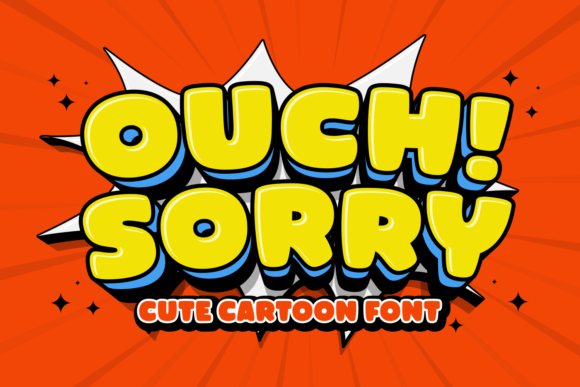
Ouch Sorry Font: The Cute Cartoon Display Font for Creative Projects
The world of typography is vast and diverse, with numerous fonts available for various design needs. One such font that has gained popularity among designers and artists is the Ouch Sorry Font. This cute cartoon display font has become a go-to choice for creating visually appealing headlines, titles, book covers, advertising materials, t-shirts, and more. In this article, we’ll explore the features, benefits, and uses of the Ouch Sorry Font, and why it’s an excellent addition to your design toolkit.
What is Ouch Sorry Font?
Ouch Sorry Font is a chubby, cartoon-style display font designed to add a touch of playfulness and whimsy to your creative projects. Its unique character design makes it perfect for grabbing attention and conveying a sense of fun and friendliness. The font’s thickness and chunky texture give it a distinctive look that’s sure to stand out in any design.
Key Features of Ouch Sorry Font
- Cartoon-style design: Ouch Sorry Font boasts a cute and playful design that’s reminiscent of childhood cartoons and comics.
- Chunky texture: The font’s thickness makes it perfect for headlines, titles, and other design elements that require a bold and eye-catching look.
- Versatile: Ouch Sorry Font can be used for a wide range of design projects, from book covers and advertising materials to t-shirts and more.
- Easily readable: Despite its chunky texture, Ouch Sorry Font is surprisingly easy to read, making it suitable for both digital and print designs.
Benefits of Using Ouch Sorry Font
So, why should you choose Ouch Sorry Font for your design projects? Here are just a few benefits of using this versatile font:
- Adds a touch of personality: Ouch Sorry Font is sure to add a dash of personality and whimsy to your designs, setting them apart from more traditional fonts.
- Increases engagement: The font’s playful design and chunky texture are sure to grab attention and keep viewers engaged.
- Perfect for branding: Ouch Sorry Font can be used to create a consistent brand identity that’s fun, friendly, and approachable.
- Cross-platform compatibility: Ouch Sorry Font can be used on various platforms, including digital devices, print materials, and more.
Creative Ways to Use Ouch Sorry Font
Ouch Sorry Font is an incredibly versatile font that can be used in a wide range of design projects. Here are some creative ways to use this font:
- Headlines and titles: Use Ouch Sorry Font to create bold and eye-catching headlines and titles that grab attention.
- Book covers: Add a touch of whimsy and playfulness to your book covers with Ouch Sorry Font.
- Advertising materials: Use Ouch Sorry Font to create eye-catching ads that stand out from the competition.
- T-shirts and merchandise: Create fun and playful designs for t-shirts, stickers, and other merchandise with Ouch Sorry Font.
- Social media graphics: Use Ouch Sorry Font to create engaging social media graphics that grab attention and encourage sharing.
Pairing Ouch Sorry Font with Other Fonts
While Ouch Sorry Font is a stunning font on its own, it can also be paired with other fonts to create a unique and visually appealing design. Here are some font pairing suggestions:
- Open Sans: Pair Ouch Sorry Font with Open Sans for a clean and modern look.
- Lato: Combine Ouch Sorry Font with Lato for a bold and eye-catching design.
- Merriweather: Pair Ouch Sorry Font with Merriweather for a classic and elegant look.
In conclusion, Ouch Sorry Font is a versatile and playful font that’s perfect for adding a touch of whimsy and fun to your design projects. Its chunky texture, cartoon-style design, and ease of readability make it an excellent choice for headlines, titles, book covers, advertising materials, t-shirts, and more. Whether you’re a designer, artist, or DIY enthusiast, Ouch Sorry Font is sure to become a valuable addition to your design toolkit.